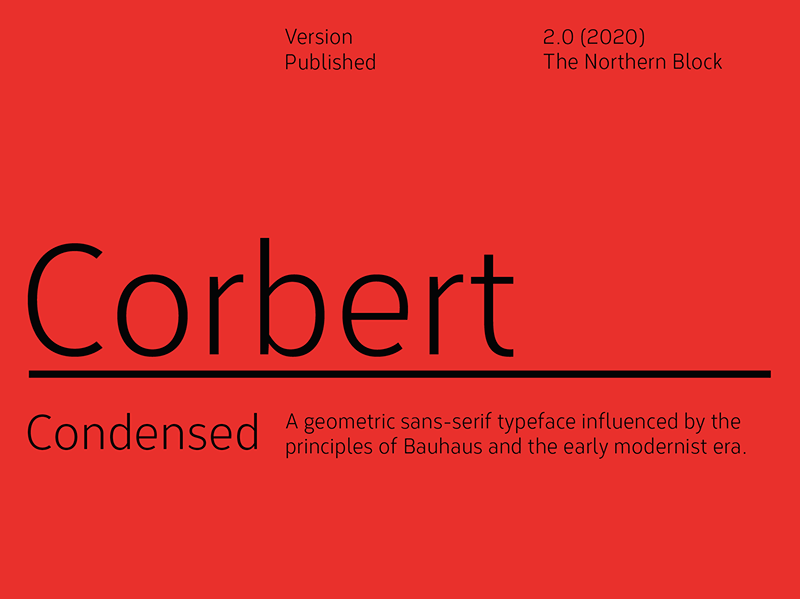
Font name: | Corbert Condensed |
Author: | The Northern Block |
Note by The Northern Block | |
Corbert Condensed is a space-efficient and narrower variant derived from the original Corbert typeface. This condensed version, approximately 15% slimmer than its counterpart, is specifically designed to optimize space utilisation in text layouts and complex design projects. The typeface maintains the geometric sans-serif characteristics of the original Corbert, reflecting precision and clarity in its design. |